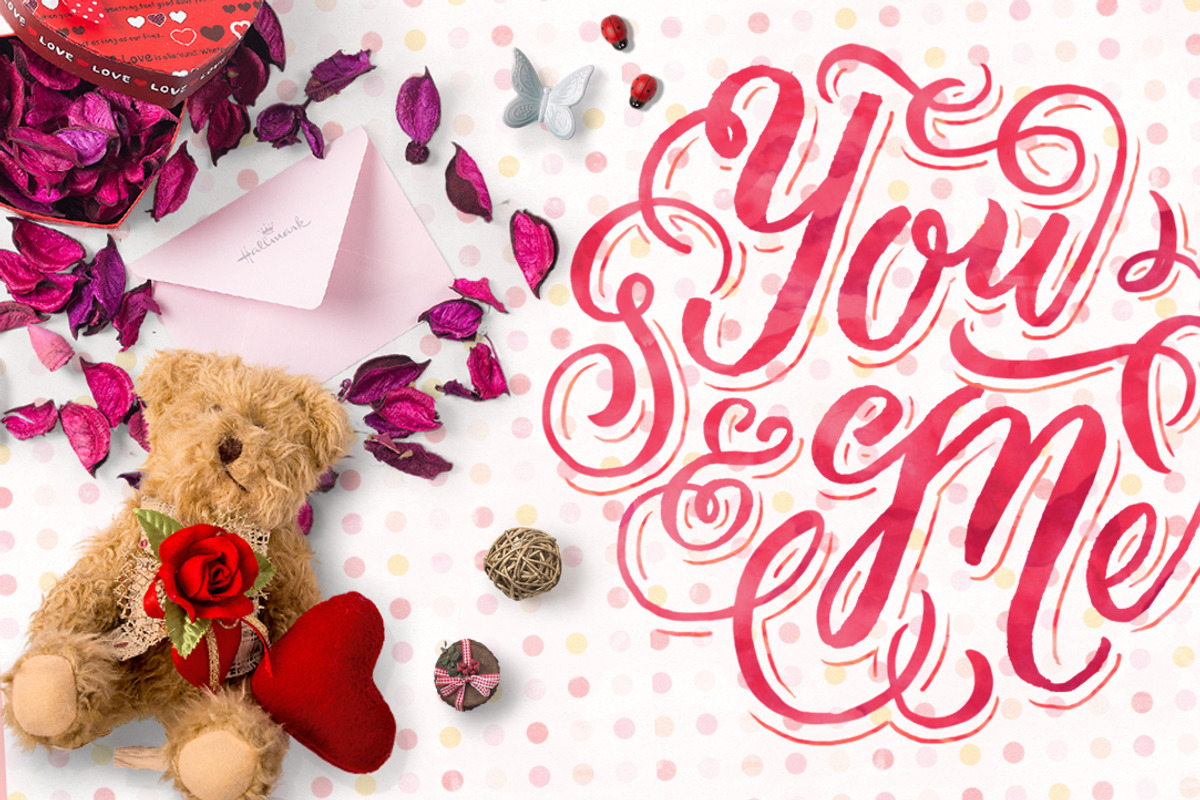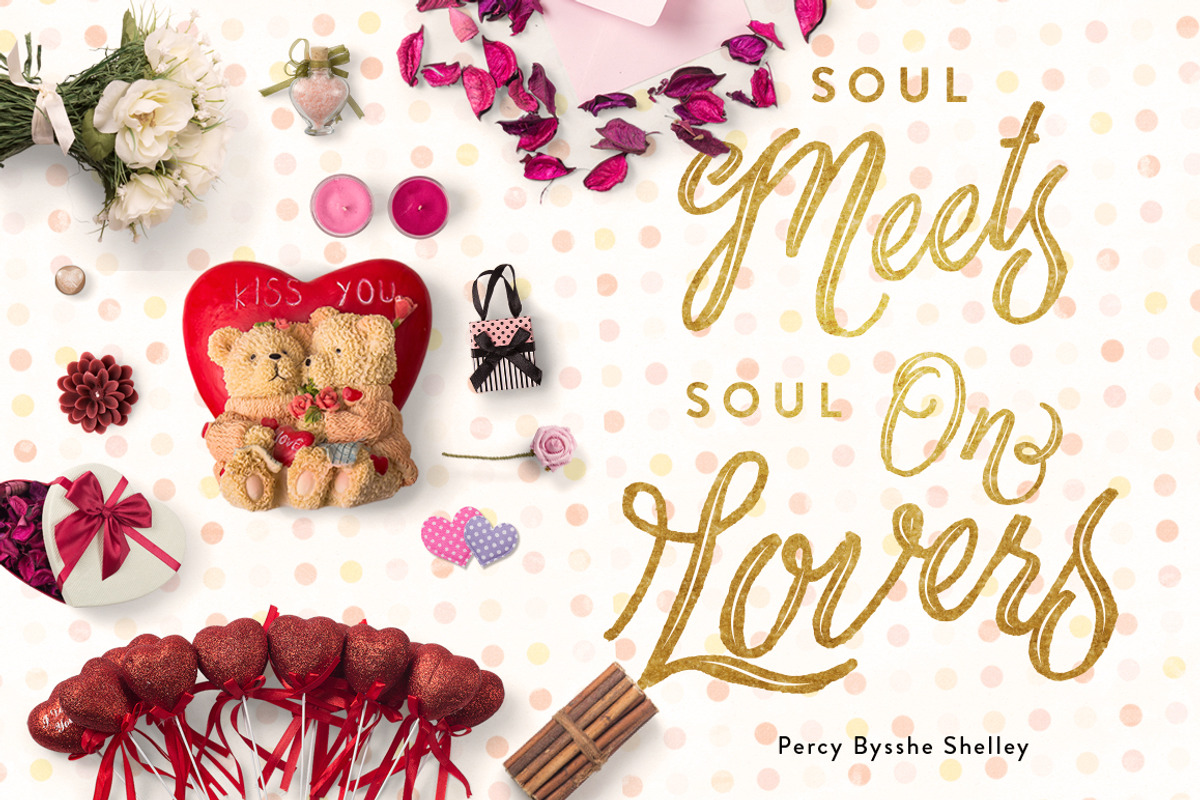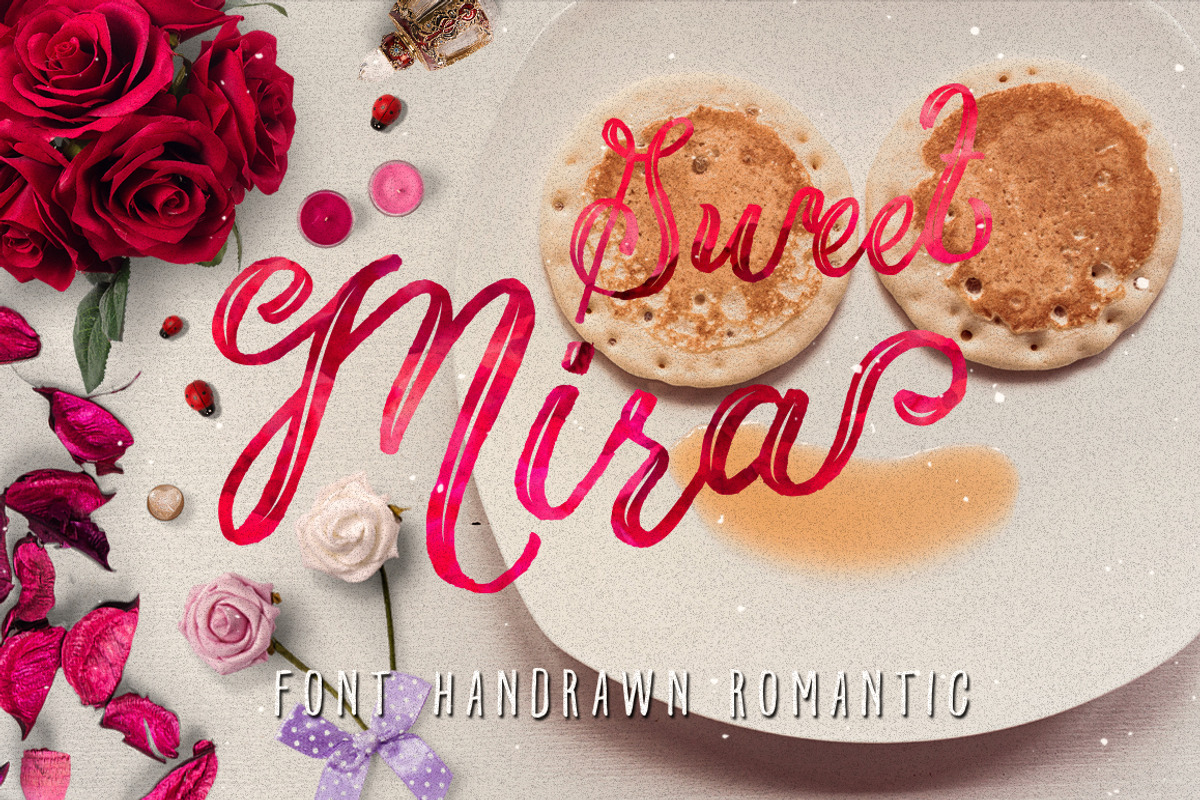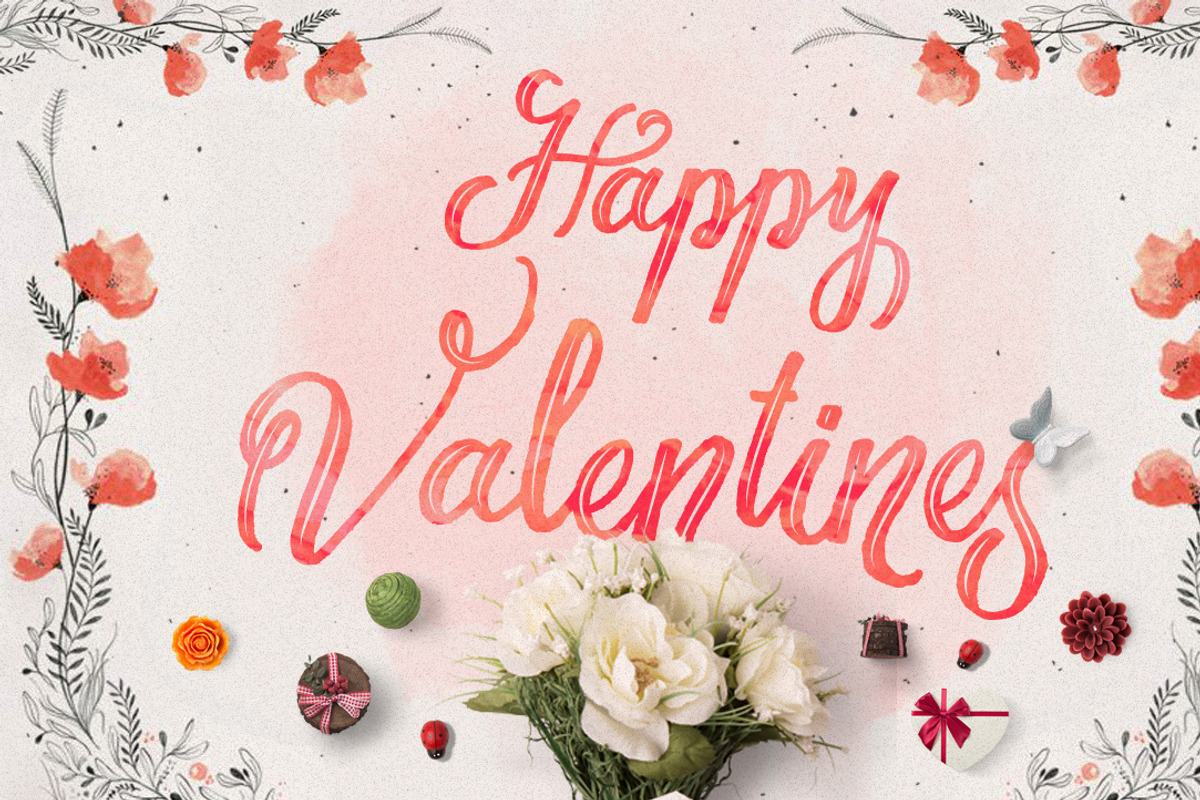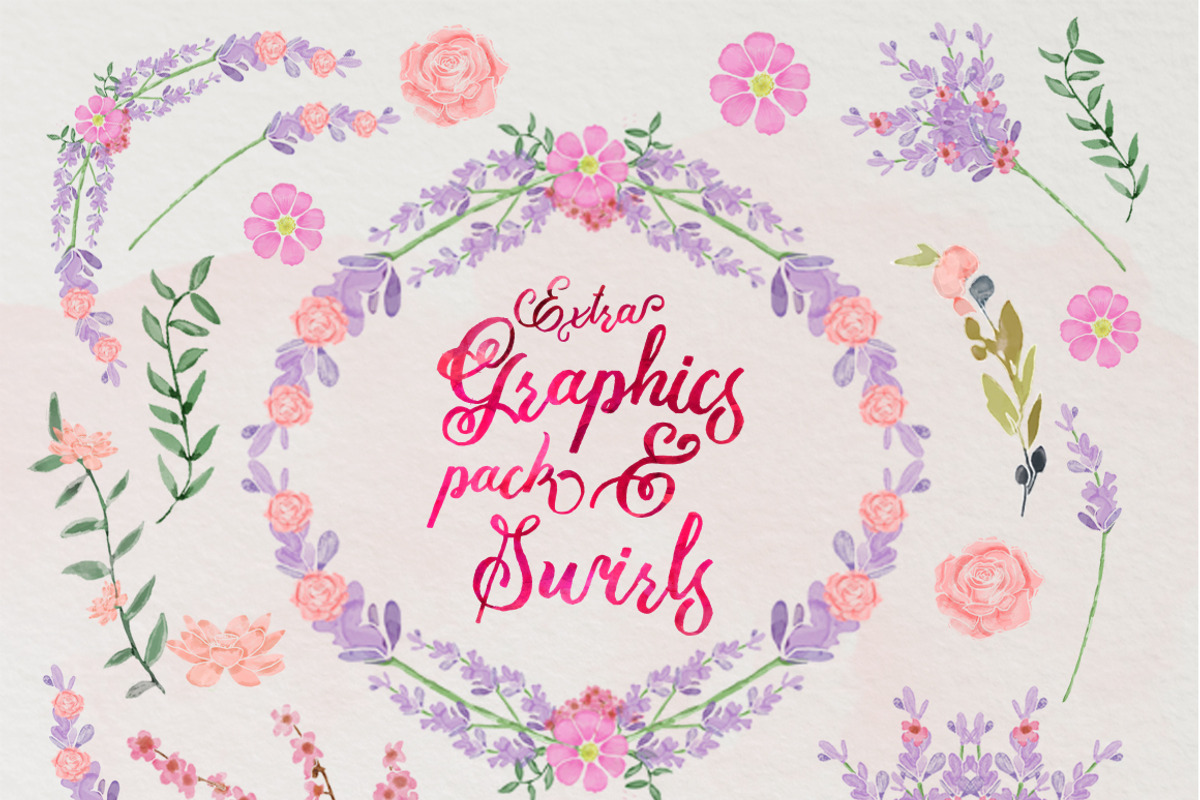
Mira & graphic watercolor & swirls
extra graphic pack watercolor and swirl
mira script was completely handwritten using calligraphy brush. Rough edges and imperfect lines give this brush lettered font a unique and trendy look. The Features of this fonts is :
Stylistic Alternates Contexual Alternates
Perfect for wedding invitations, adding design accents, and giving your projects a coveted hand crafted look. I especially love the look of this font with watercolor textures added